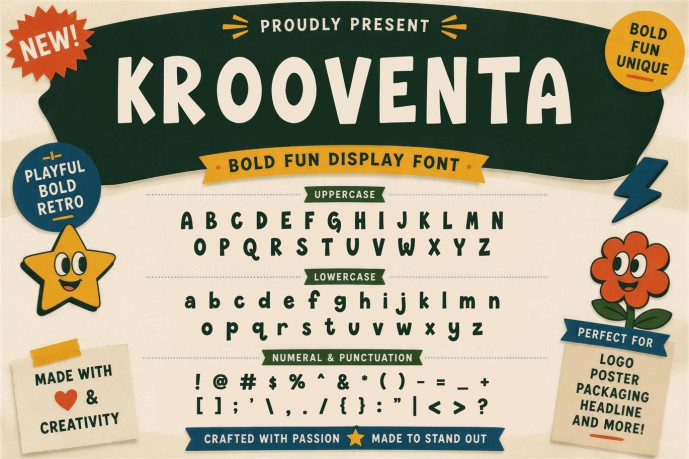
Krooventa – Playful Bold Display Font
Designer: Pitchlook
Krooventa is a bold and playful display font featuring quirky letterforms, friendly shapes, and a charming handmade personality. Its chunky sans serif style creates strong visual impact while maintaining a fun, approachable, and memorable appearance.
Perfect for logos, branding, posters, packaging, headlines, book covers, social media graphics, advertisements, editorial layouts, children’s projects, and other creative designs that need a cheerful retro-inspired character.
Font Features
Bold and playful display style
Unique and quirky letterforms
Uppercase and lowercase characters
Numerals and punctuation
Strong readability for large headlines
Fun retro-inspired personality
Suitable for branding and display projects
Bring energy, personality, and positive vibes to your next creative project with Krooventa.